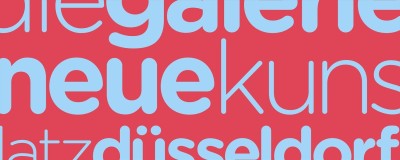
Expressway Font Free Download is a sleek, modern sans-serif typeface designed to bring a contemporary and streamlined look to your designs. Perfect for branding, logos, editorial design, signage, and web content, this font combines clean lines with a professional appearance, making it highly versatile across various creative projects.
With Expressway Font Free Download, you’ll receive a complete set of uppercase letters, lowercase, numbers, and essential punctuation, offering flexibility for both print and digital applications. Whether you’re creating bold branding materials, impactful marketing campaigns, or designing a minimalist website, this font ensures clarity and modern style.
Elevate your design projects with Expressway Font Free Download. Its clean, modern, and professional style makes it a perfect choice for projects that need sophistication and a contemporary edge.